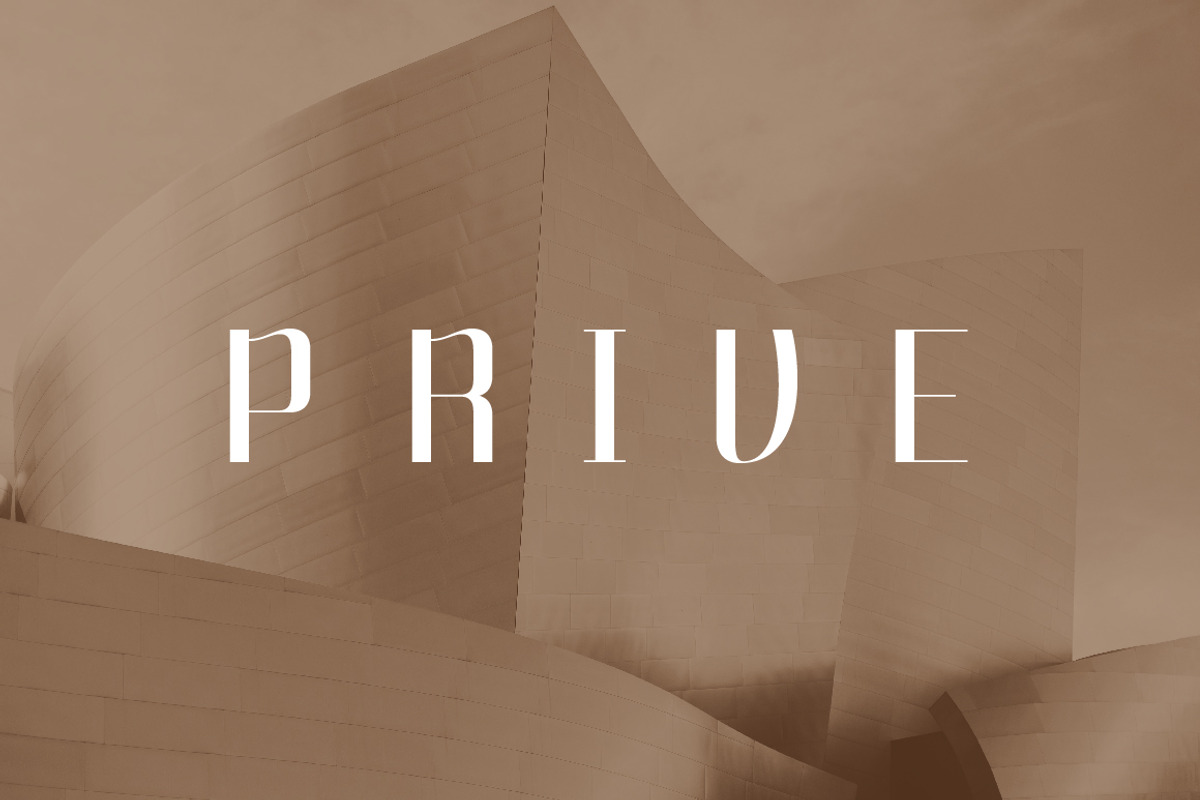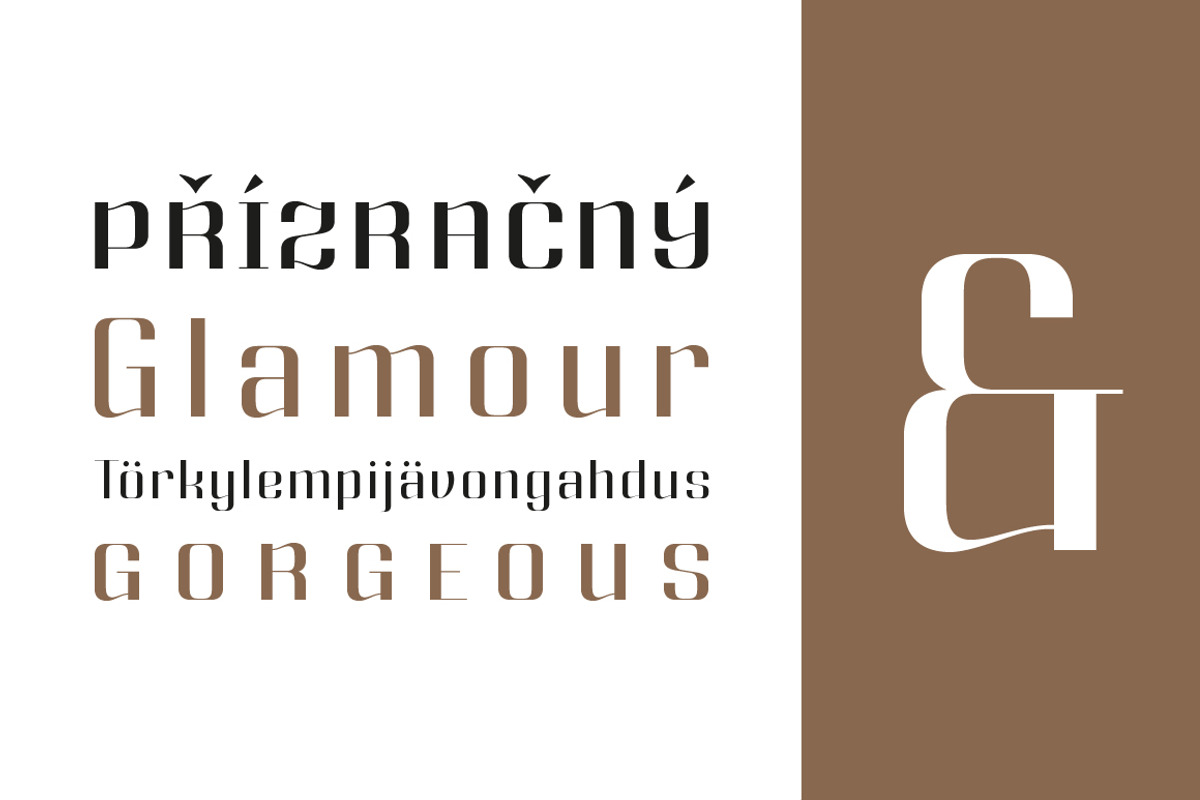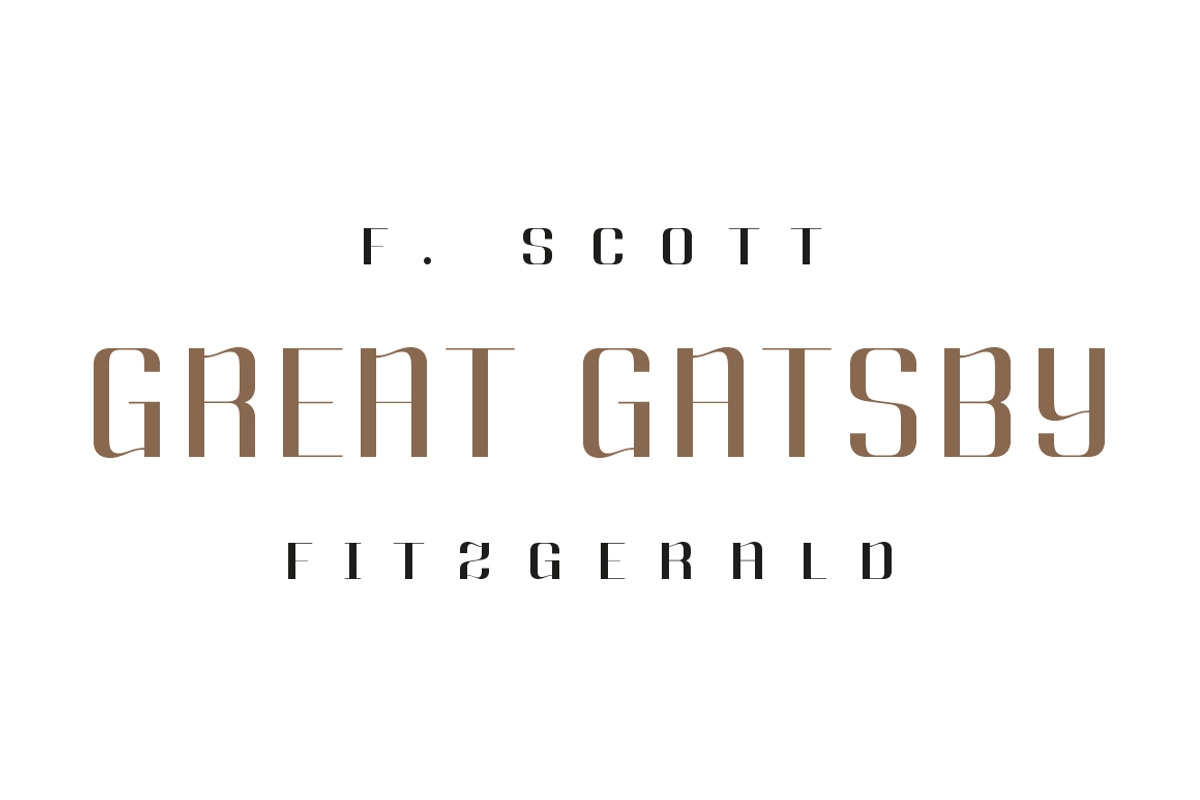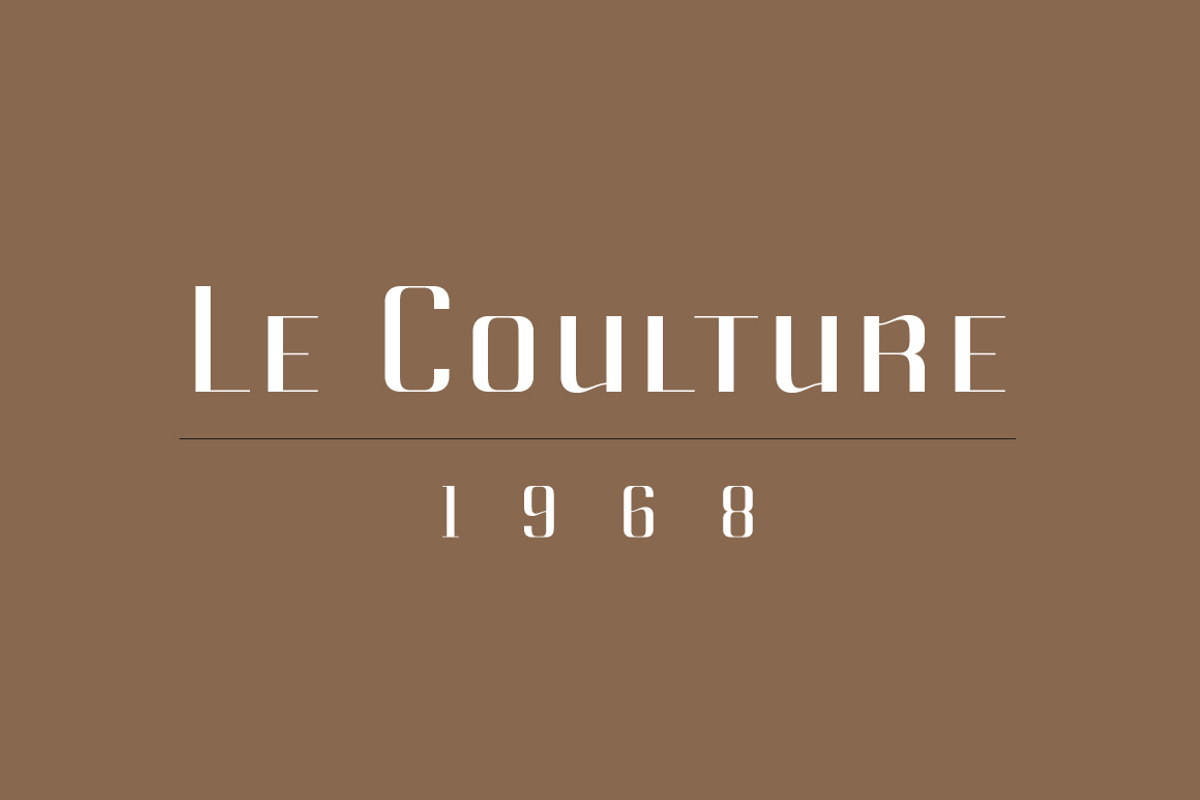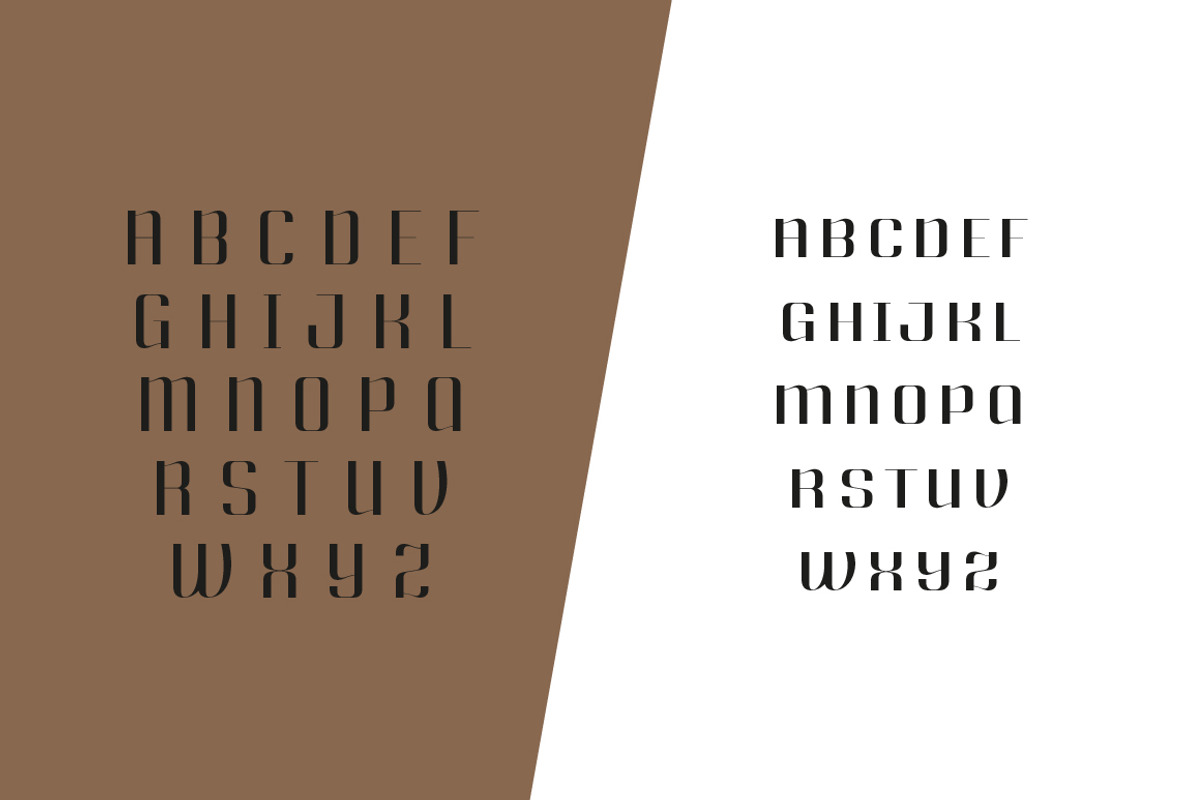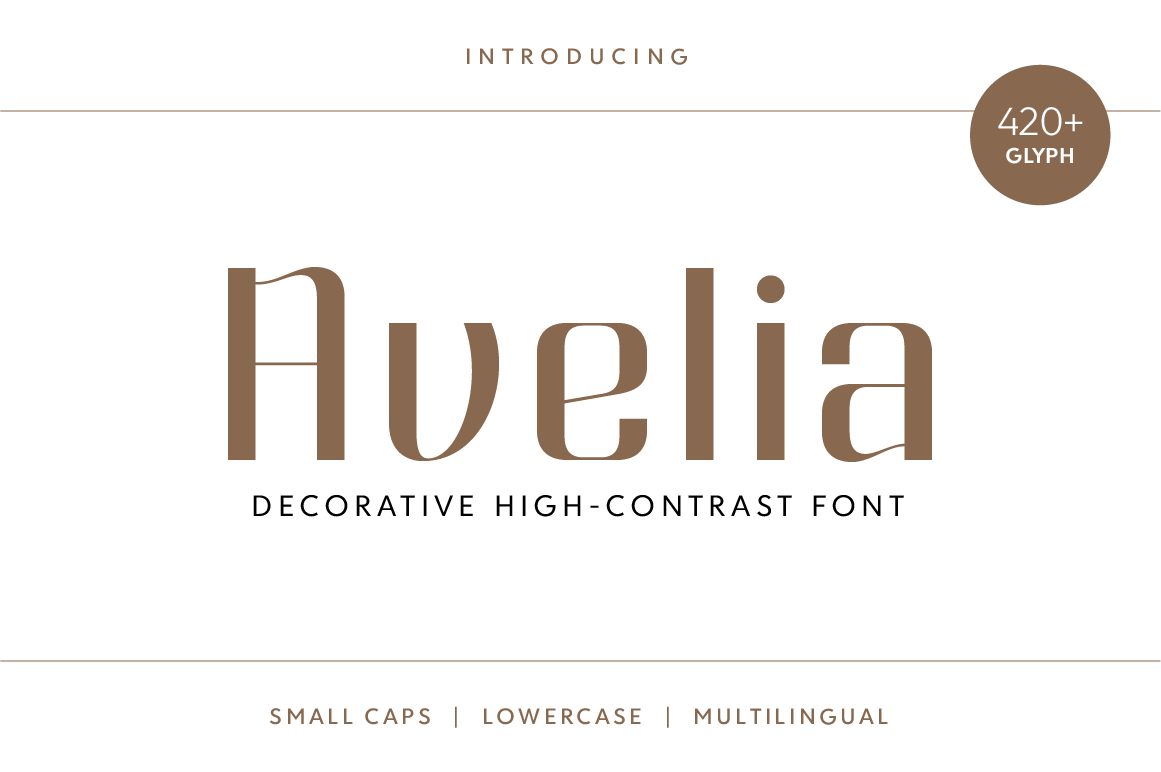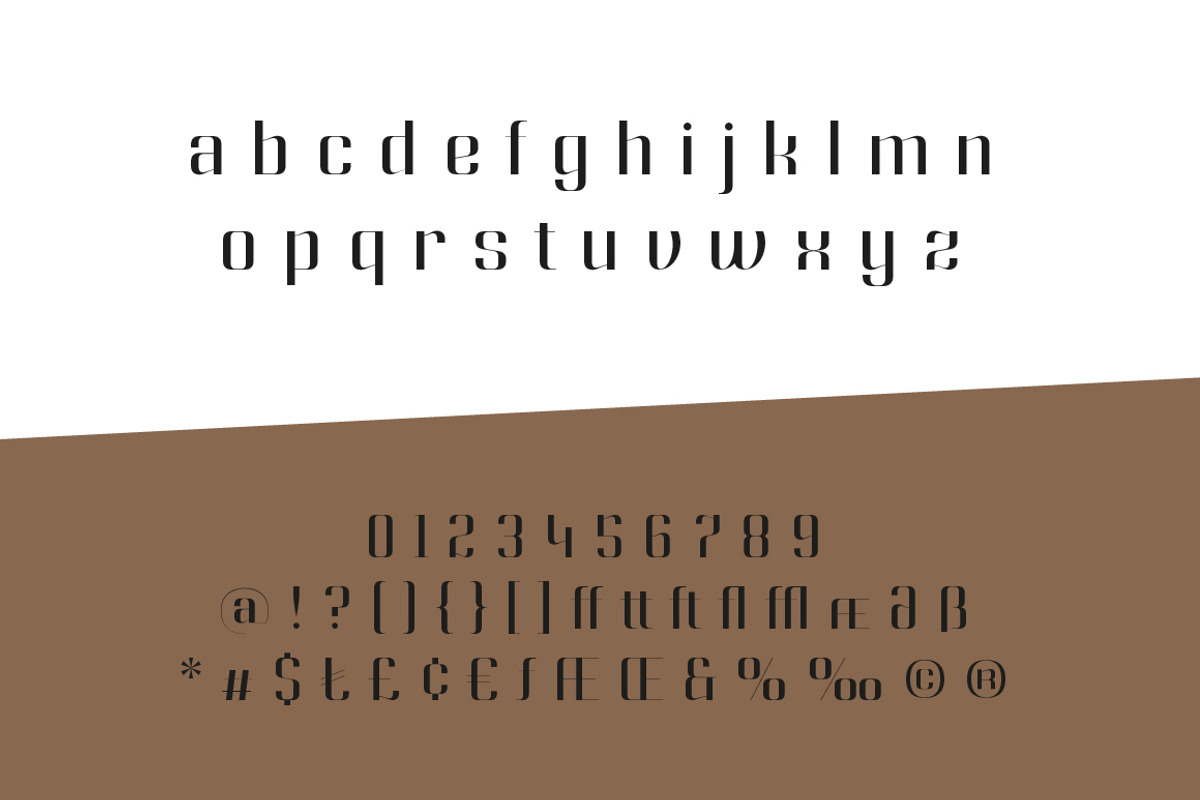
Avelia - Decorative Typeface
AVELIA - DECORATIVE TYPEFACE
Avelia is a high contrast typeface with multilingual applications. Slender lines and great legibility make it perfect as a display font. With curves in all the right places, it is great for editorials and other commercial use.
Avelia decorative font consists of 426 characters, including uppercase, lowercase, numbers, small caps, ligatures and accents. With its condense character, Avelia is very effective and useful for uses in works such as Packaging, Logo design, Headlines and derivatives of modern Art Deco.
- Uppercase Character
- Lowercase Character
- Small Caps Character
- 426 Glyph